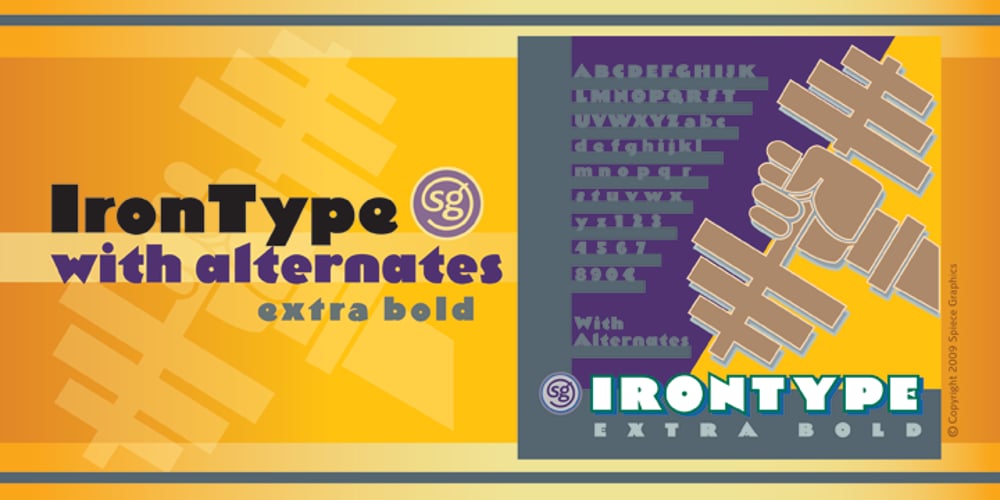
IronType SG
IronType SG font
IronType SG Font Family was designed by Jim Spiece and published by Spiece Graphics. IronType SG contains 1 styles and family package options. IronType (formerly known as Ironman) is an extra bold geometric titling face in the Art Deco poster tradition. A warm sense of strength and playfulness runs throughout this design. Triangular-shaped crossbars are some of its distinguishing characteristics. The face also contains some very amusing alternates. The tails of the alternate cap K and R extend below the line and the alternate cap N has a hump instead of a diagonal stroke. A handy set of lowercase letters with lining and smaller figures are also included. IronType Extra Bold is now available in the OpenType Std format. Some new characters have been added to this OpenType version. These advanced features work in current versions of Adobe Creative Suite InDesign, Creative Suite Illustrator, and Quark XPress. Check for OpenType advanced feature support in other applications as it gradually becomes available with upgrades.